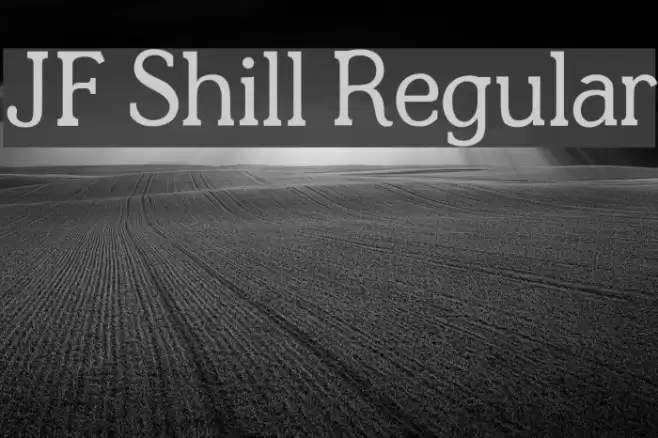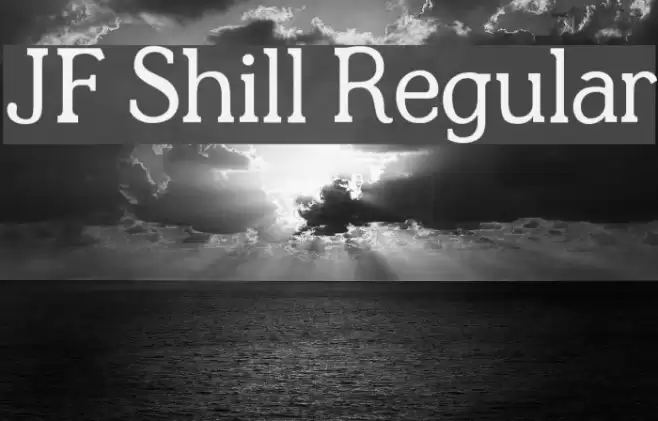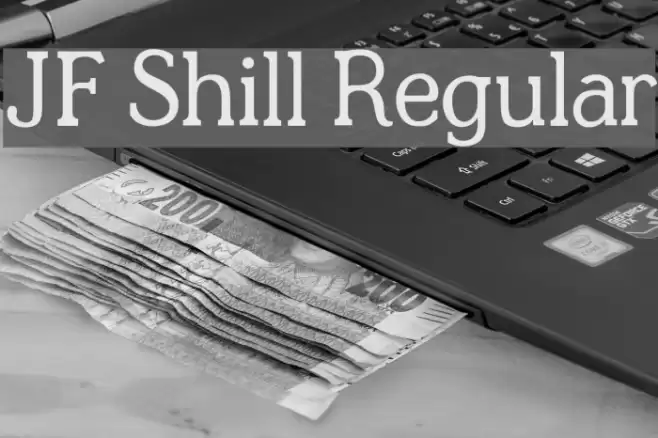
JF Shill Regular Font
JF Shill Regular Description
This font exhibits a classic serif style with a modern twist, characterized by its elegant and refined letterforms. The uppercase letters are bold and commanding, while the lowercase letters maintain a balanced and harmonious appearance. The numerals are clear and easily distinguishable, making them suitable for various applications. The special characters are well-integrated, adding versatility to the font's usage. Overall, the font combines traditional serif elements with a contemporary aesthetic, making it suitable for both formal and creative projects.
A classic serif font with a modern twist, featuring elegant and refined letterforms from Uncategorized fonts.
- Proposed Projects: Ideal for editorial design, book covers, formal invitations, branding, and logo design.
- Overall Style: Classic